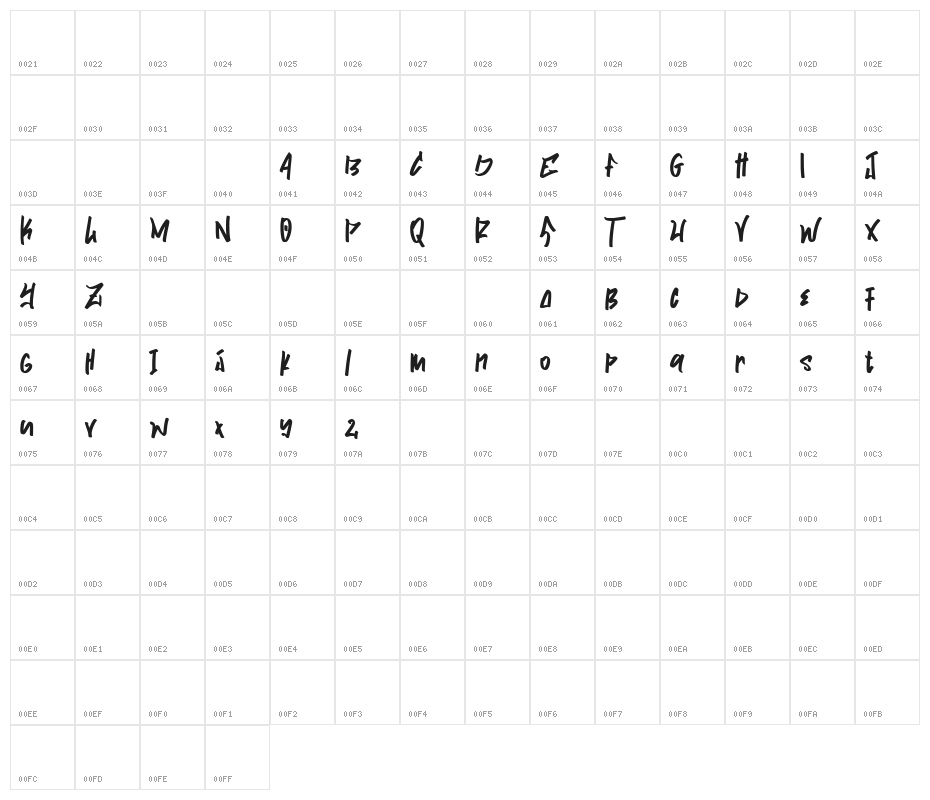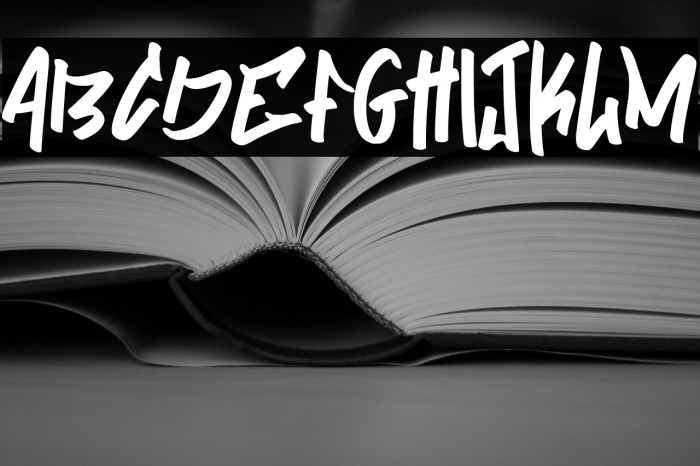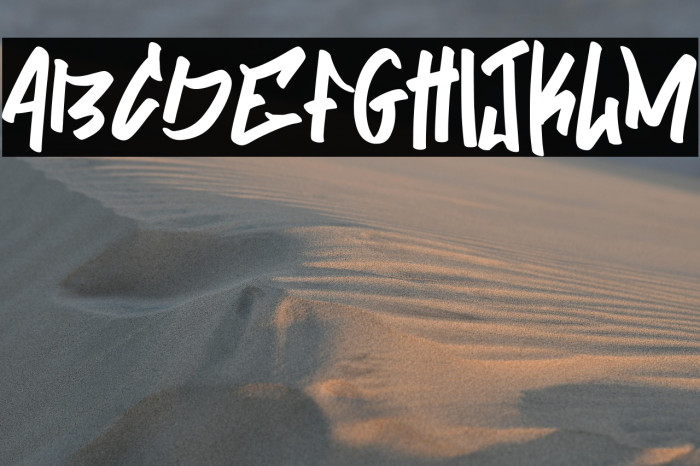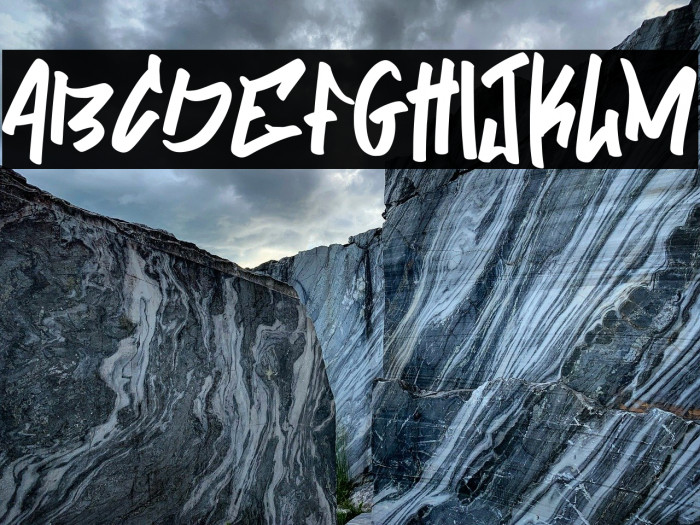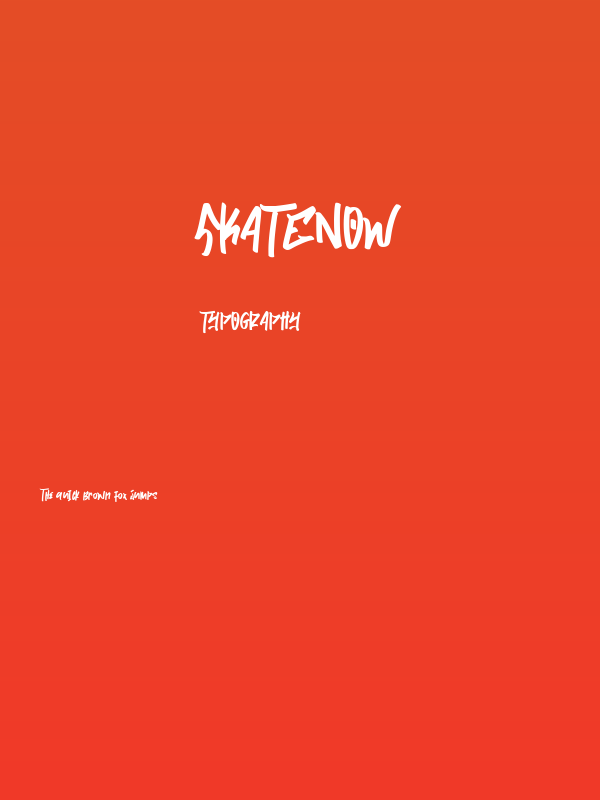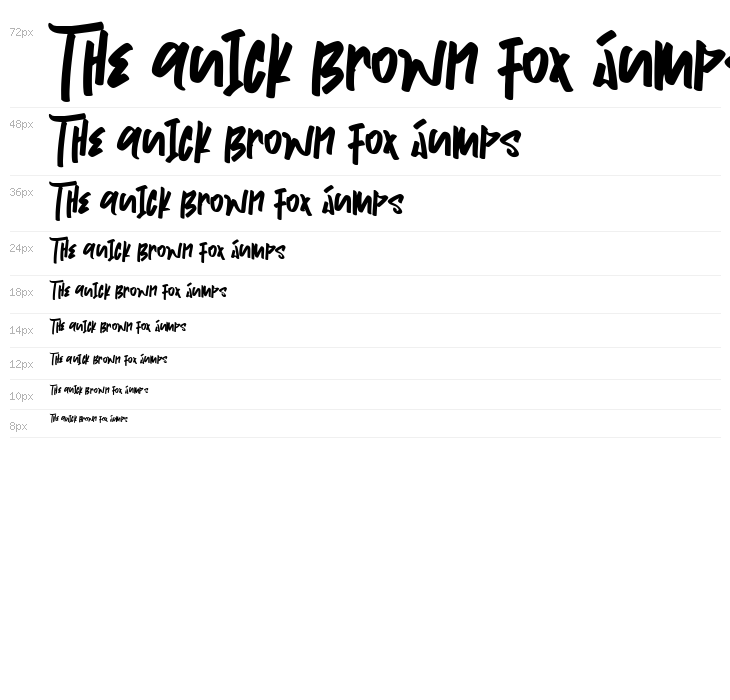
Skatenow Font
Skatenow Description
This font features a bold, energetic style with a graffiti-like appearance, characterized by thick strokes and a dynamic flow. The letters are slightly slanted, adding a sense of movement and spontaneity. The uppercase and lowercase letters maintain a consistent style, with exaggerated curves and sharp angles that give it a rebellious and urban feel. The numbers and special characters follow the same aesthetic, ensuring a cohesive look across all text elements. This font is ideal for projects that require a bold statement and a youthful, edgy vibe.
| Overall Style | Urban, Energetic, Rebellious |
| Proposed Projects | Perfect for streetwear branding, skateboarding event posters, music album covers, and urban-themed designs. |